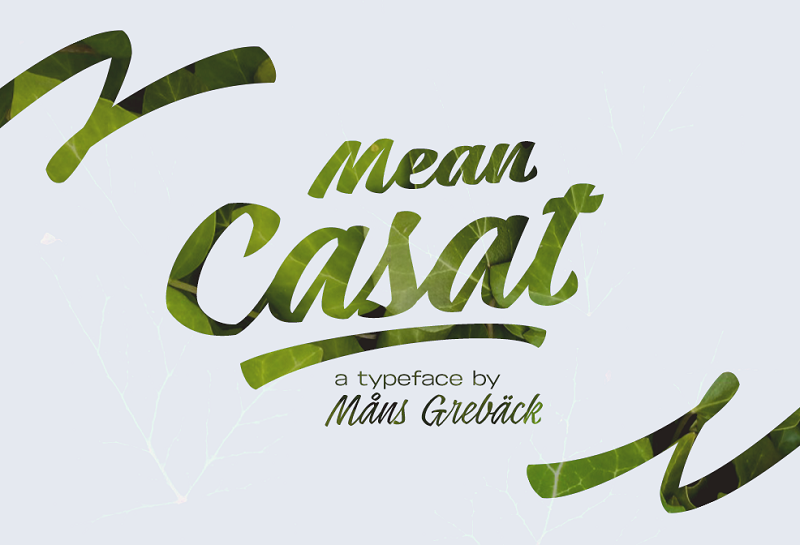
Mean Casat
Mean Casat Script Font
Mean Casat is a stylish script family.
The typeface is an original creation by Måns Grebäck, built during 2017.
Its five weight has been carefully designed and gives great variation to the font family:
Mean Casat Thin, Mean Casat Light, Mean Casat Med, Mean Casat Bold and Mean Casat Fat.
Use § after a word to make a swash. Example: Casat§
To make different types of swashes, write § followed by 1-9. Example: Casat§6